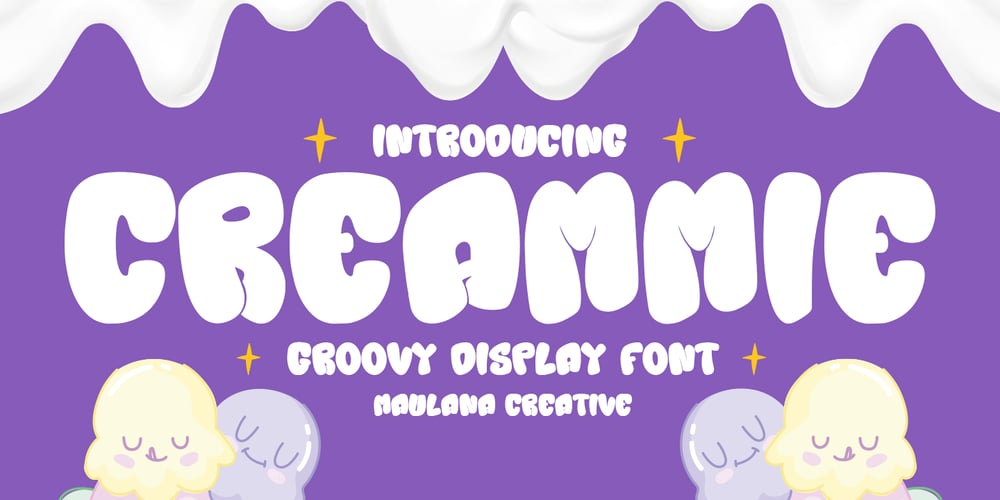
MC Creammie
MC Creammie font
MC Creammie Font Family was designed by Gilang Maulana and published by Maulana Creative. MC Creammie contains 1 styles and family package options. Creammie Groovy Decorative Display Font. Bold stroke, fun character with a bit of ligatures and alternates. To give you an extra creative work. Creammie font support multilingual more than 100+ language. This font is good for logo design, Social media, Movie Titles, Books Titles, a short text even a long text letter and good for your secondary text font with script or serif. Make a stunning work with Creammie font. Cheers, Maulana Creative